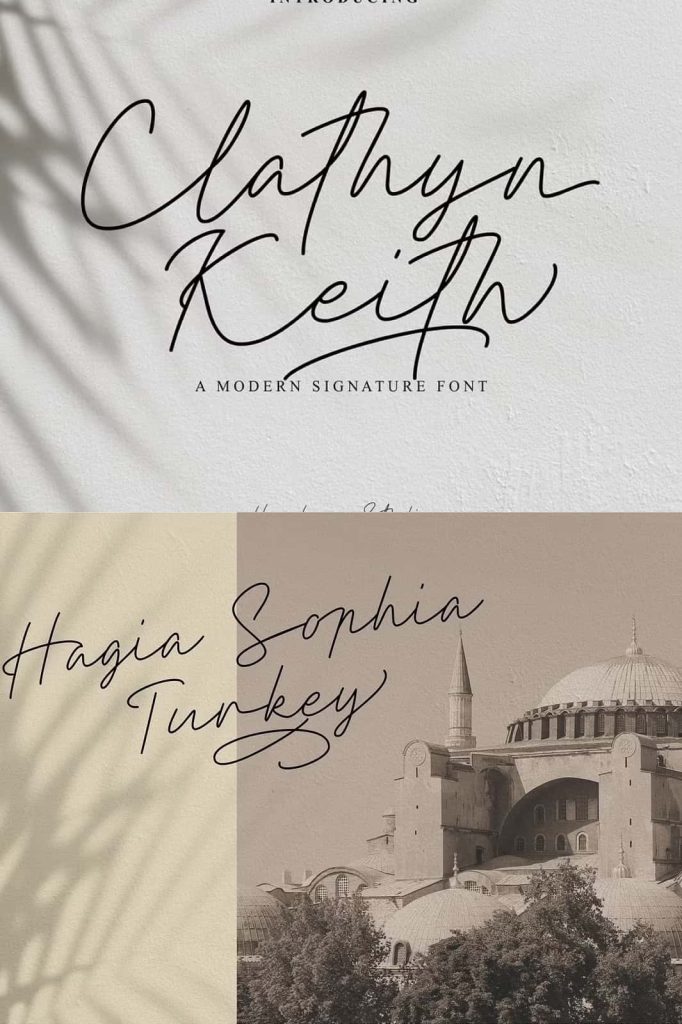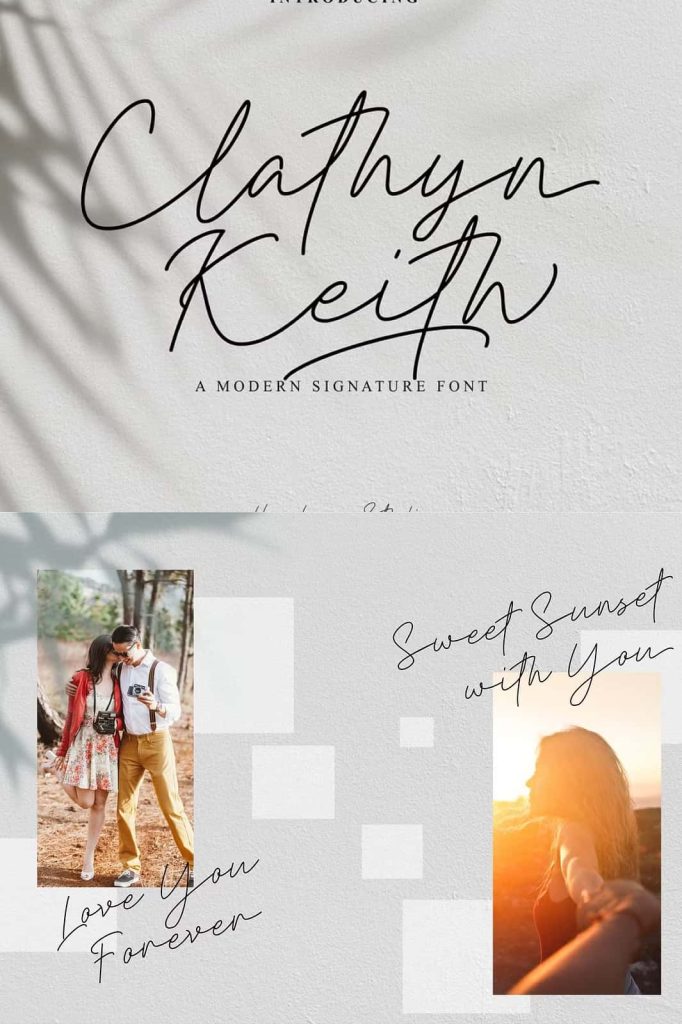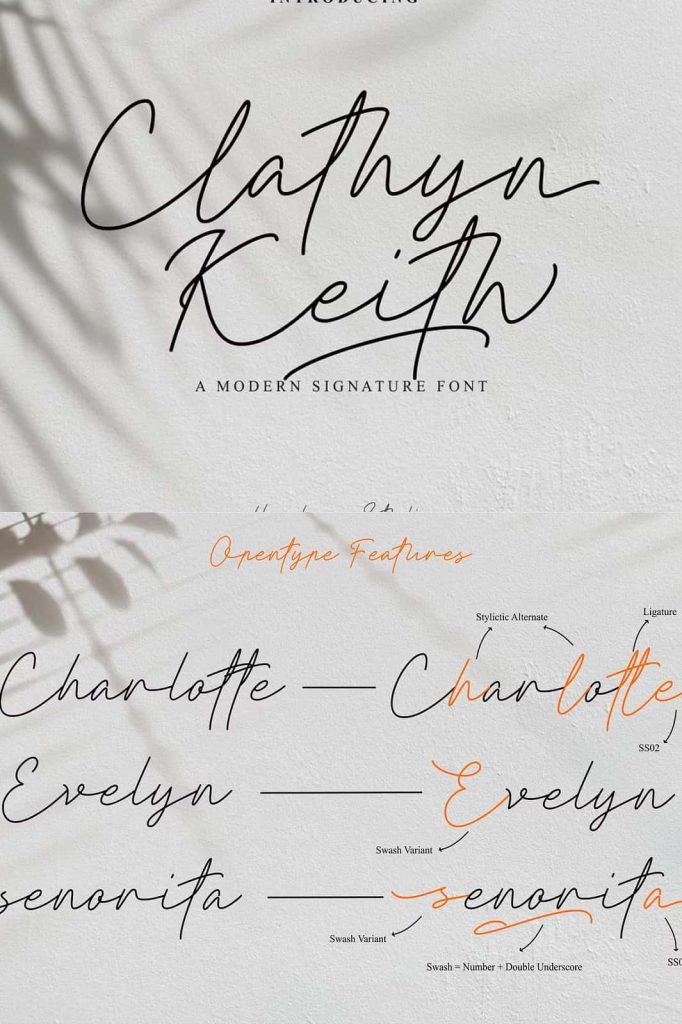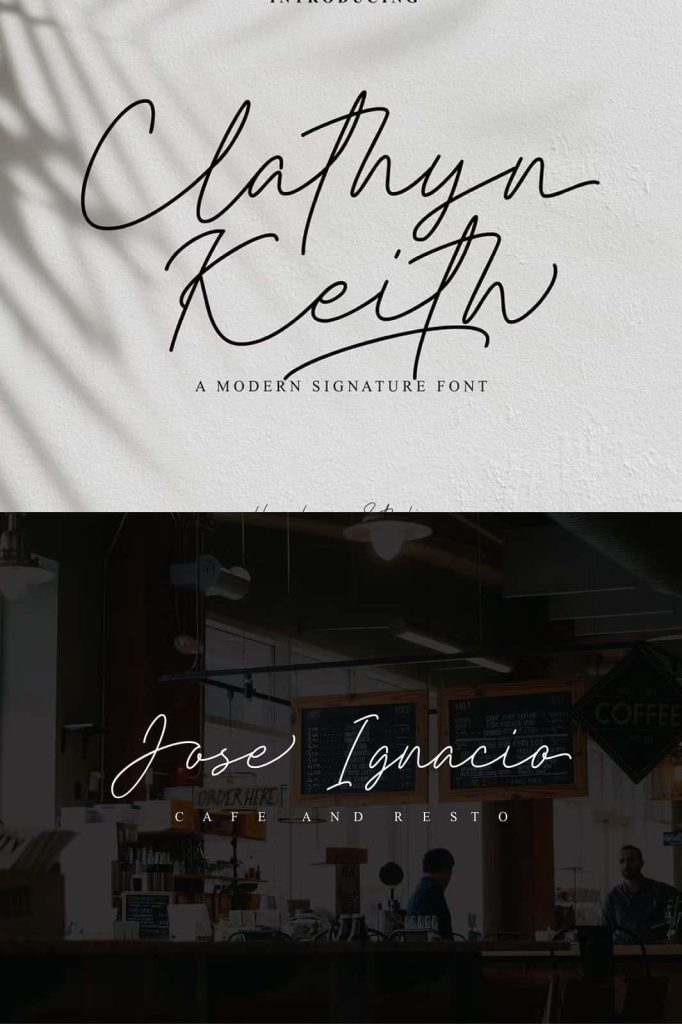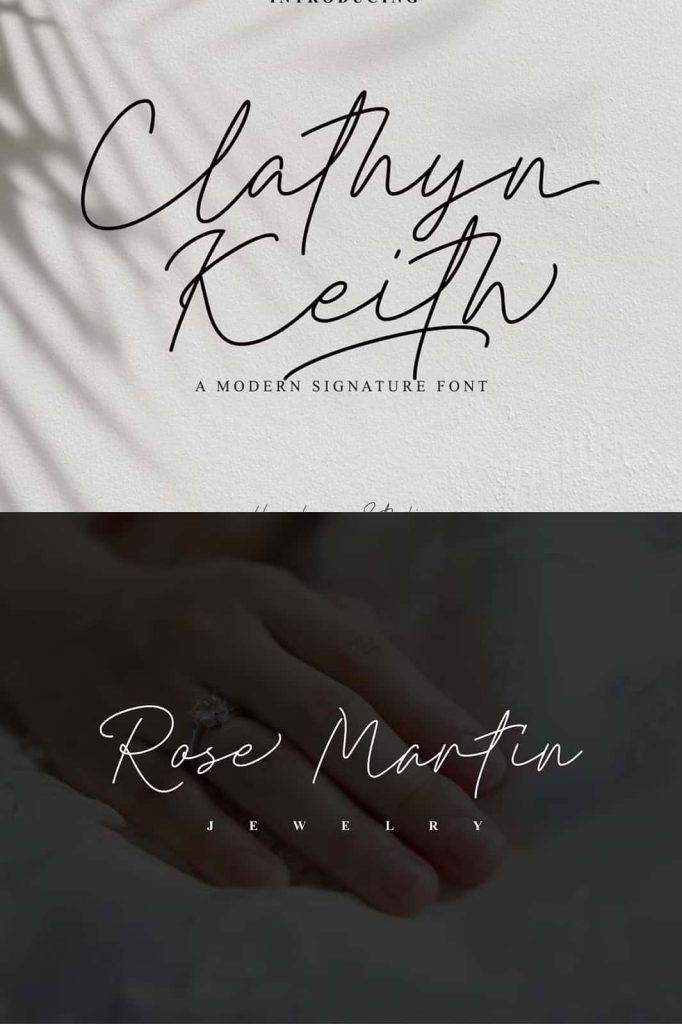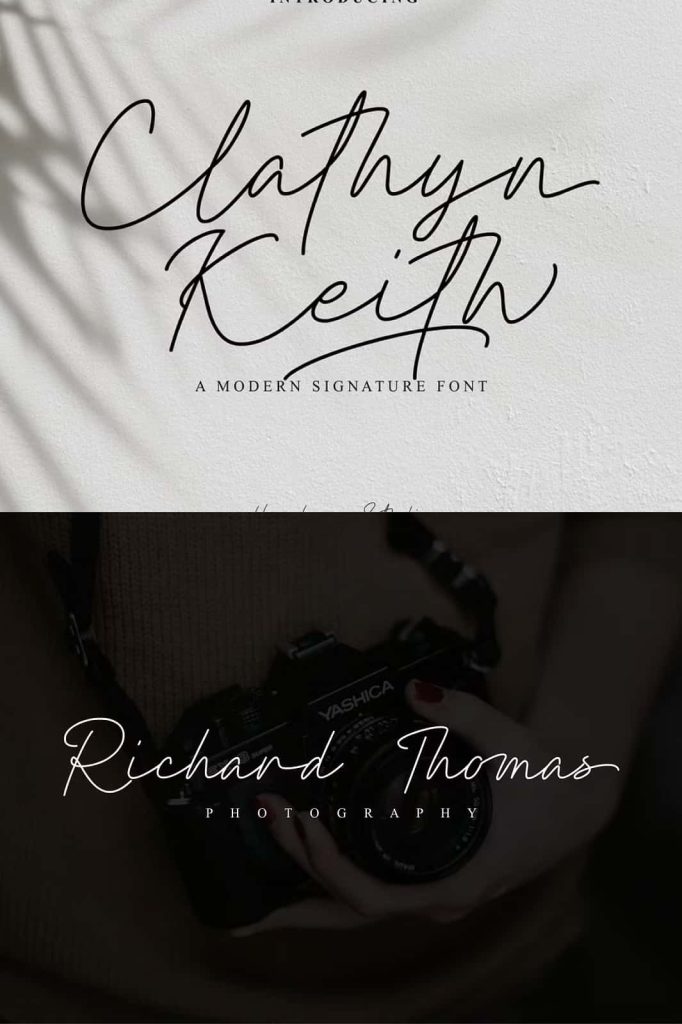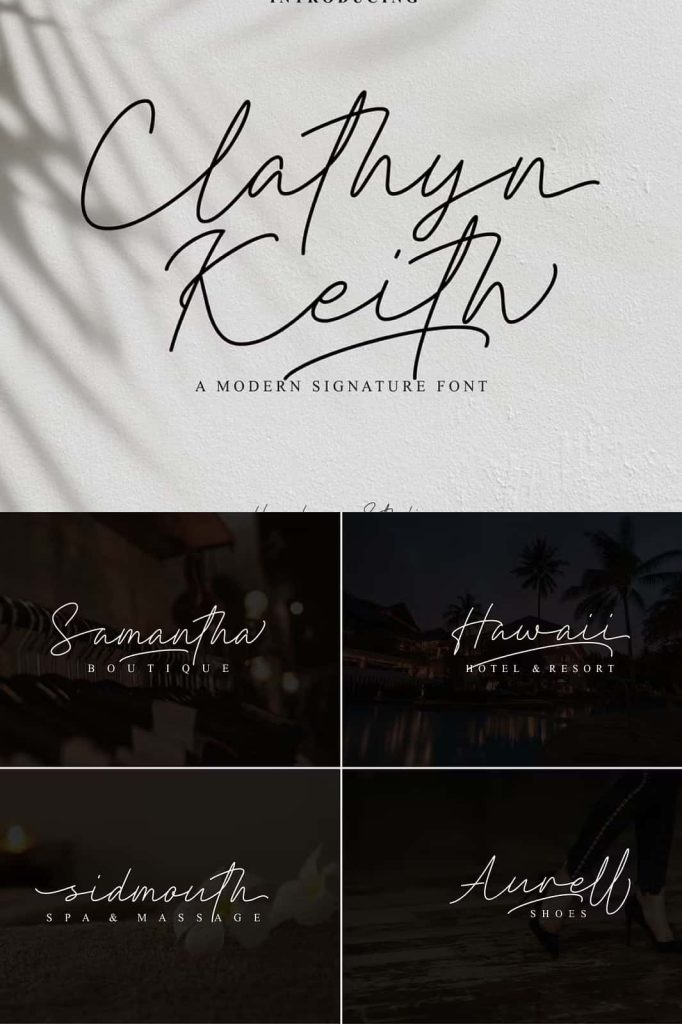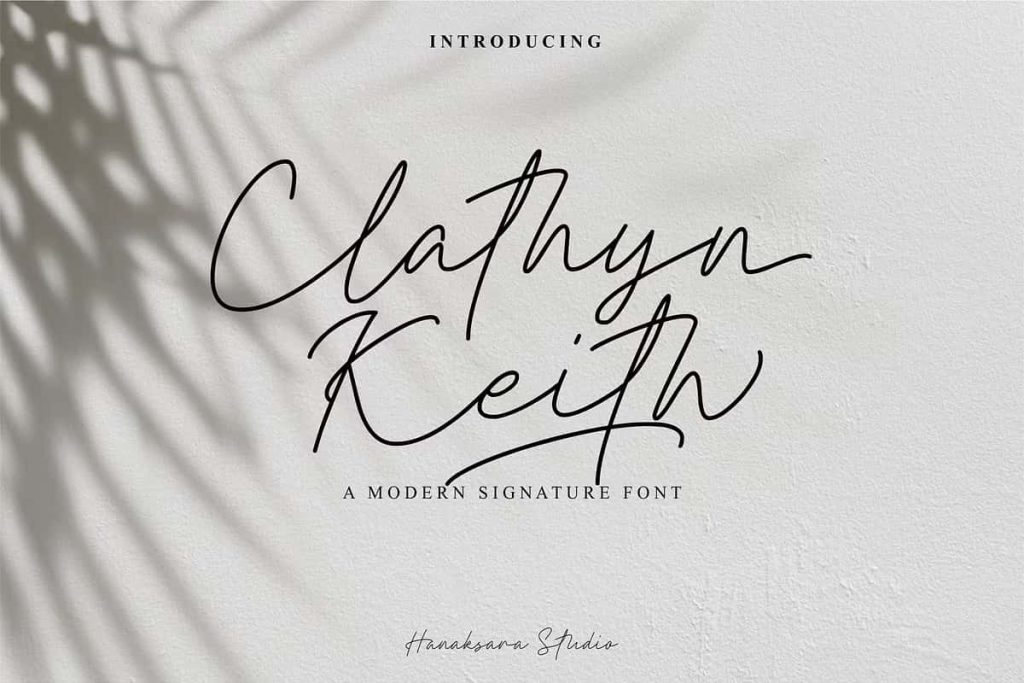
Clathyn Keith SignatureleastedDecember 28, 2024Fonts Clathyn Keith is a modern signature font. It’s made by hand, so it similar to natural handwriting. Download